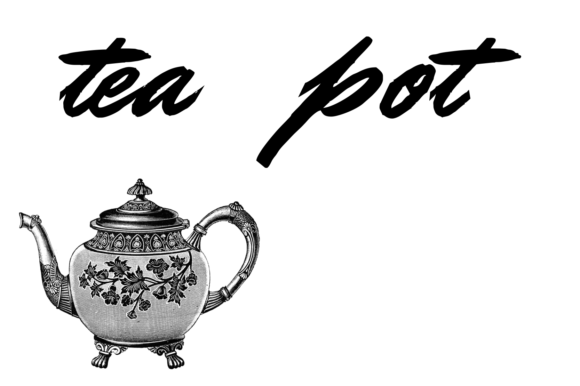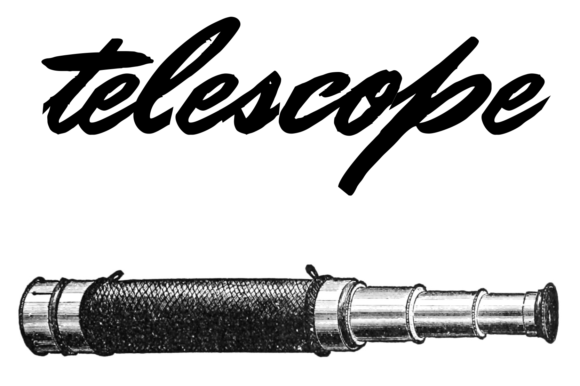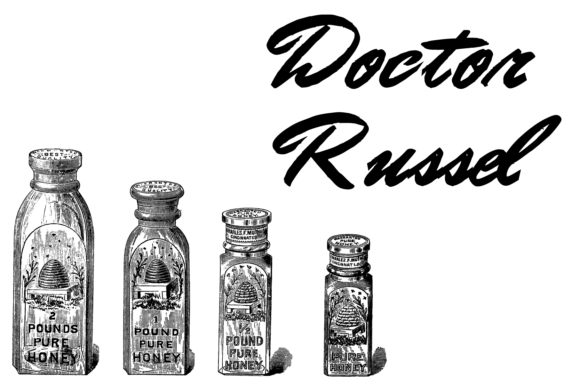
Discover the Charm of Doctor Russel Font: A Rough Naive Handwritten Script Font
Are you a designer or crafter looking for a unique and eye-catching font to add a personal touch to your projects? Look no further than the Doctor Russel font, a rough naive handwritten script font that is sure to capture the hearts of those who appreciate the beauty of imperfect, hand-crafted typography.
What is Doctor Russel Font?
The Doctor Russel font is a carefully crafted, handwritten script font that embodies the essence of raw, unbridled creativity. With its rough, naive texture, this font exudes a sense of authenticity and vulnerability, making it perfect for projects that require a personal, human touch.
Designed to resemble the imperfect, handwritten script of a bygone era, Doctor Russel font is characterized by its irregular letterforms, uneven baseline, and distinctive ink flow. This unique aesthetic gives the font a charming, one-of-a-kind quality that sets it apart from more polished, refined fonts.
Key Features of Doctor Russel Font
So, what makes Doctor Russel font so special? Here are just a few of its key features:
- Rough, naive texture: The Doctor Russel font boasts a distinctly rough, handmade texture that gives it a unique, organic feel.
- Handwritten script style: With its flowing, connected letterforms, this font is perfect for creating elegant, handwritten-style scripts.
- Irregular letterforms: The font’s irregular letterforms add to its charm, giving it a delightfully imperfect, human feel.
- Multi-language support: The Doctor Russel font supports multiple languages, making it a versatile choice for designers and crafters around the world.
Uses for Doctor Russel Font
So, what can you use the Doctor Russel font for? The possibilities are endless! Here are just a few ideas to get you started:
- Branding and packaging: Add a touch of personality to your brand or product with the Doctor Russel font’s unique, handmade aesthetic.
- Stationery and invitations: Create beautiful, one-of-a-kind stationery and invitations that showcase your personal style.
- Digital and print media: Use the Doctor Russel font in your digital and print projects, such as brochures, flyers, and social media graphics.
- Crafting and DIY projects: Add a personal touch to your crafting and DIY projects, such as handmade cards, gift tags, and scrapbooking pages.
Tips for Using Doctor Russel Font
To get the most out of the Doctor Russel font, here are a few tips to keep in mind:
- Use it sparingly: Due to its bold, attention-grabbing nature, it’s best to use the Doctor Russel font sparingly to avoid overwhelming your design.
- Pair it with contrasting fonts: Pair the Doctor Russel font with cleaner, more refined fonts to create visual interest and contrast.
- Experiment with colors and textures: Play around with different colors and textures to enhance the font’s unique aesthetic and add depth to your design.
In conclusion, the Doctor Russel font is a one-of-a-kind, rough naive handwritten script font that is sure to add a touch of personality and charm to any design or crafting project. With its unique texture, irregular letterforms, and handmade aesthetic, this font is perfect for designers and crafters who appreciate the beauty of imperfect, hand-crafted typography.
So why not give the Doctor Russel font a try? With its versatility, charm, and unique character, it’s sure to become a favorite in your design or crafting arsenal.